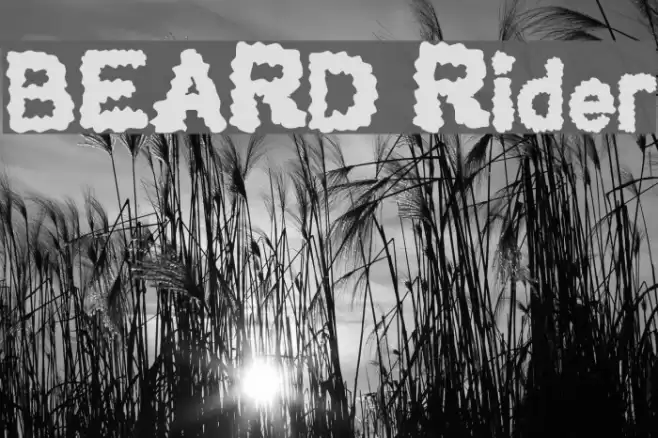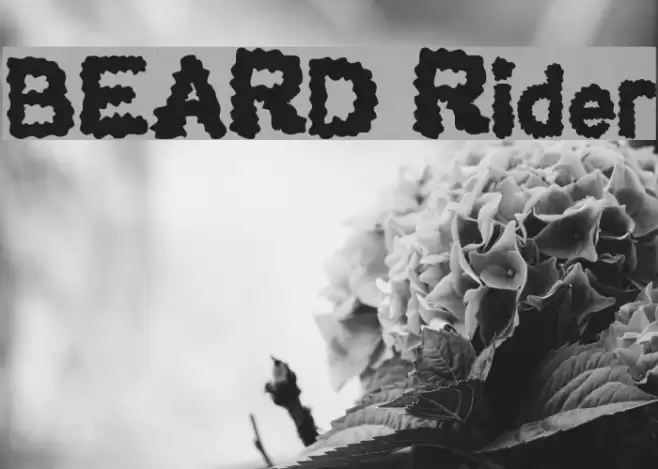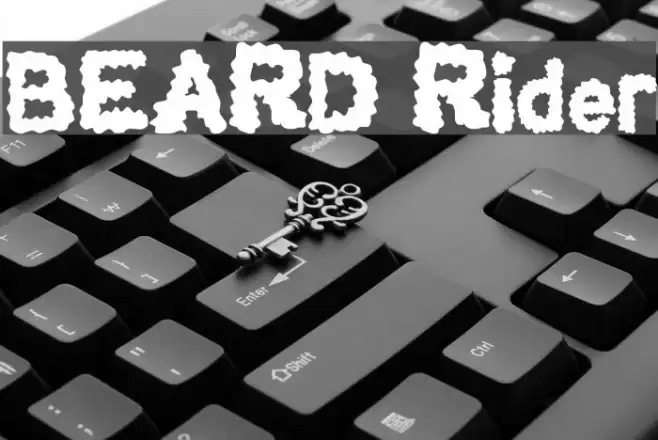
BEARD Rider Font
BEARD Rider Description
This font features a bold and playful design with a unique, textured appearance reminiscent of fluffy clouds or soft, rounded edges. Each character is crafted with a consistent, dense pattern that gives the font a distinctive and eye-catching look. The uppercase and lowercase letters maintain a uniform style, ensuring readability while adding a whimsical touch. The numbers and special characters are designed to match the overall aesthetic, making this font suitable for creative and informal applications. Its bold presence makes it ideal for capturing attention in various design projects.
A bold, playful font with a textured, fluffy appearance from Uncategorized fonts.
- Proposed Projects: Ideal for children's books, playful branding, party invitations, and creative posters.
- Overall Style: Playful, Whimsical